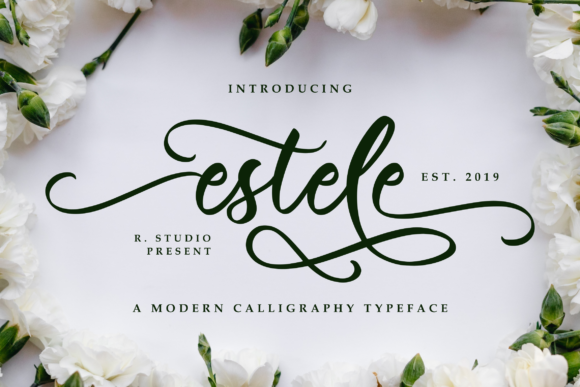
Looking for the perfect font to add a touch of elegance and sophistication to your design project? Look no further than Estele Font, created by R. Studio. Estele is a stunning script font that will captivate your audience with its beautiful swashes and irresistible charm.
With its delicate curves and graceful strokes, Estele is the epitome of elegance. Whether you're designing a wedding invitation, a logo, or a social media post, this font will elevate your design to new heights. Its versatility allows it to seamlessly blend into any project, making it the perfect choice for both personal and professional use.
One of the standout features of Estele is its ability to create stunning curved text. With just a few clicks, you can effortlessly add a touch of sophistication and uniqueness to your designs. Say goodbye to boring, straight text and let Estele bring your words to life with its mesmerizing curves.
But Estele is not just a pretty face. It is also a font that means business. Packed with a wide range of ligatures and alternate characters, you'll have endless possibilities to experiment and create designs that truly stand out. Whether you want to emphasize a word or add a stylish flourish to your typography, Estele has got you covered.
When you download Estele, you're not just getting a font – you're getting a piece of art. Each character is carefully crafted to perfection, ensuring that your designs exude professionalism and style. And with its extensive language support, Estele can be used to create stunning projects in multiple languages, opening up a world of possibilities for designers and creatives alike.
So why wait? Elevate your designs and captivate your audience with Estele Font. With its exquisite swashes, versatility, and the ability to create stunning curved text, this font is a must-have for anyone looking to add a touch of luxury to their projects. Download Estele today and let your creativity soar to new heights!